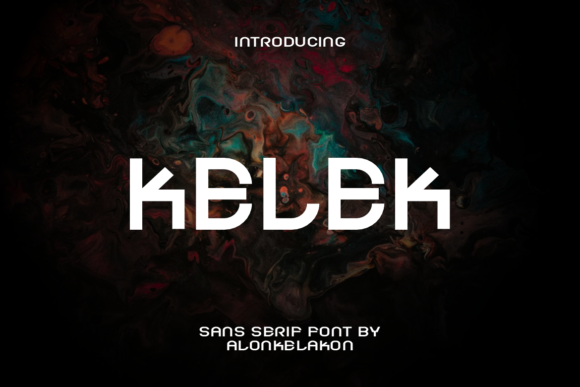
Introducing Kelek Font, the most audacious and captivating display font that will transform your designs into masterpieces of the future. Unleash your creativity with this masterpiece and craft logos that exude boldness, t-shirts that pulse with energy, and products that radiate a futuristic allure. Kelek Font is your key to unlocking a universe of extraordinary designs.
Welcome to the world of Kelek Font, where imagination knows no bounds. With its cool, bold, and modern strokes, this display font is poised to revolutionize your branding projects. Envision logos that command attention, t-shirt designs that ignite conversations, and creative products that leave an indelible mark. Kelek Font is the ultimate tool for those who dare to push boundaries and embrace the extraordinary.
Kelek Font is the perfect companion for those who crave distinction and uniqueness in their designs. Its futuristic vibe is a breath of fresh air, propelling your creations into the realm of the extraordinary. Whether you're a seasoned designer or just starting your creative journey, Kelek Font is your gateway to unlocking a world of endless possibilities.
Some say that type is the clothing of thought, and Kelek Font is the finest couture. It dresses your words in boldness, making them stand tall and proud. Kelek Font is more than just a font; it's a statement of individuality, a declaration of your unique style. Don't settle for ordinary fonts that blend into the background. Choose Kelek Font and let your designs shine like stars in the night sky.